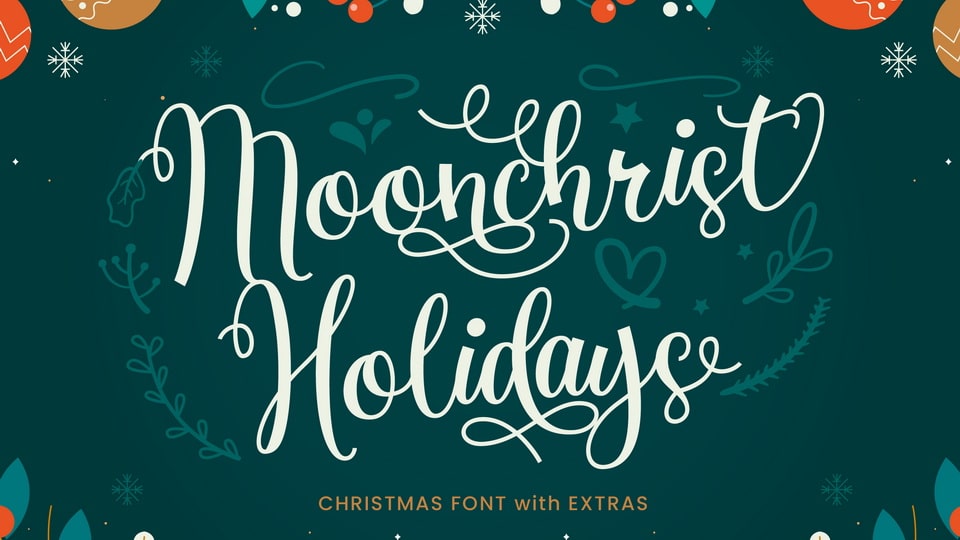
Download Moonchrist Holidays font, a beautiful Christmas script typeface. It looks stunning on wedding invitations, thank you cards, quotes, greeting cards, logos, business cards, and every other design which needs a lovely handwritten touch.